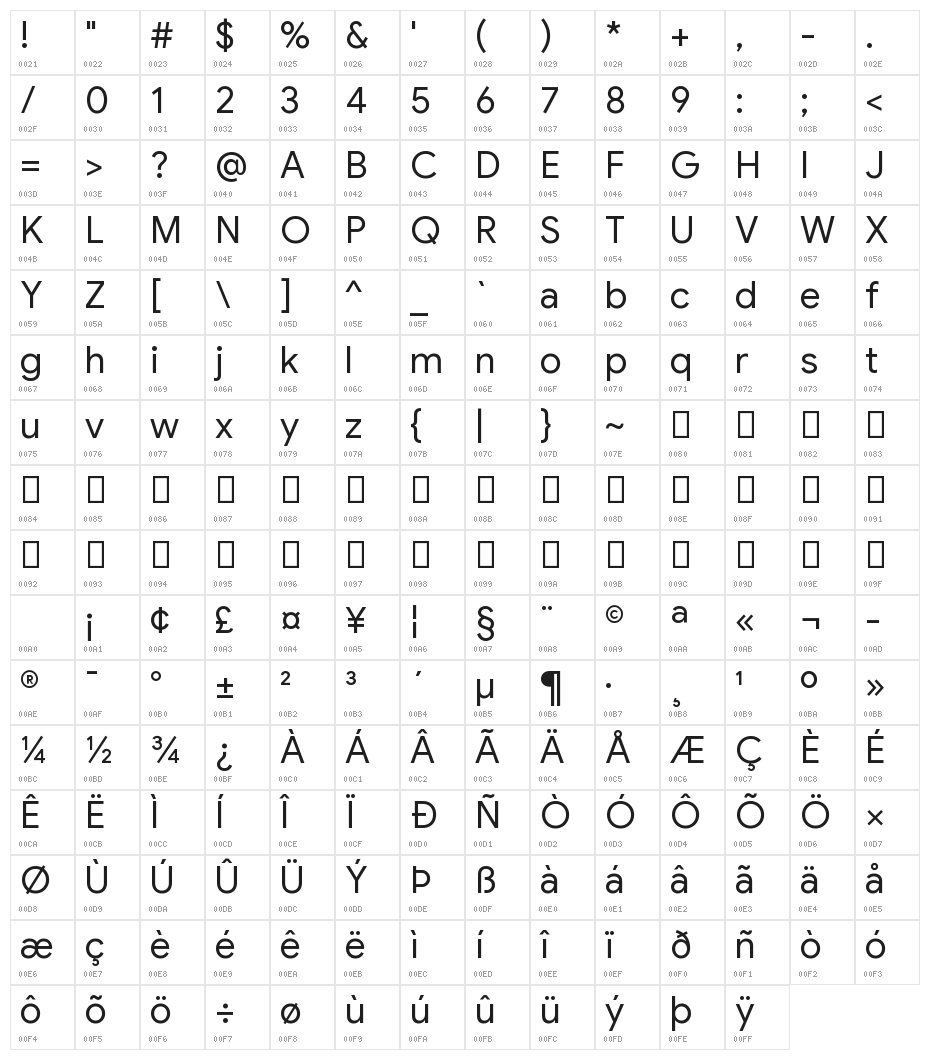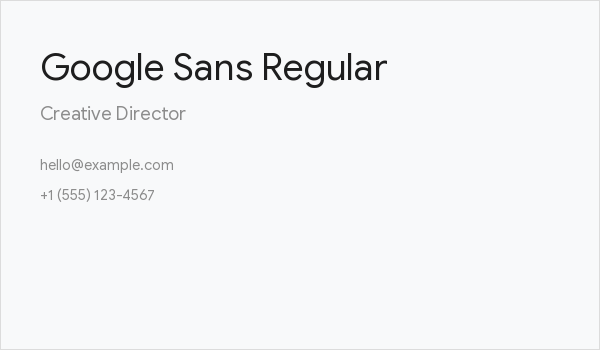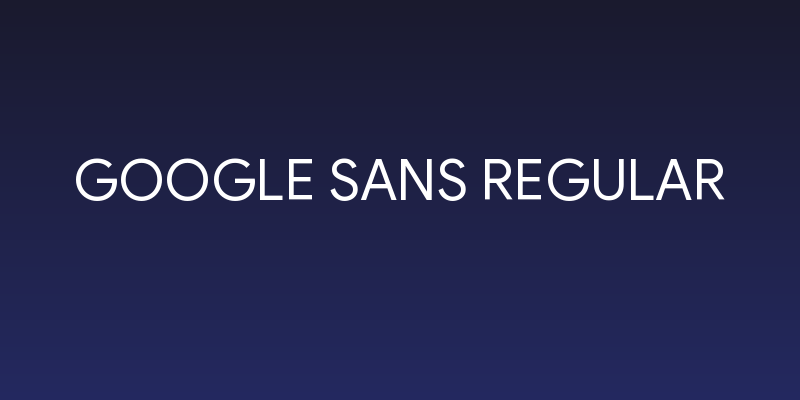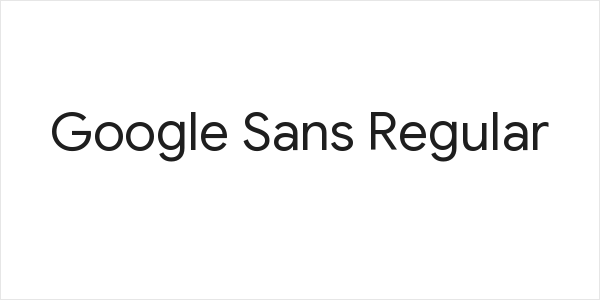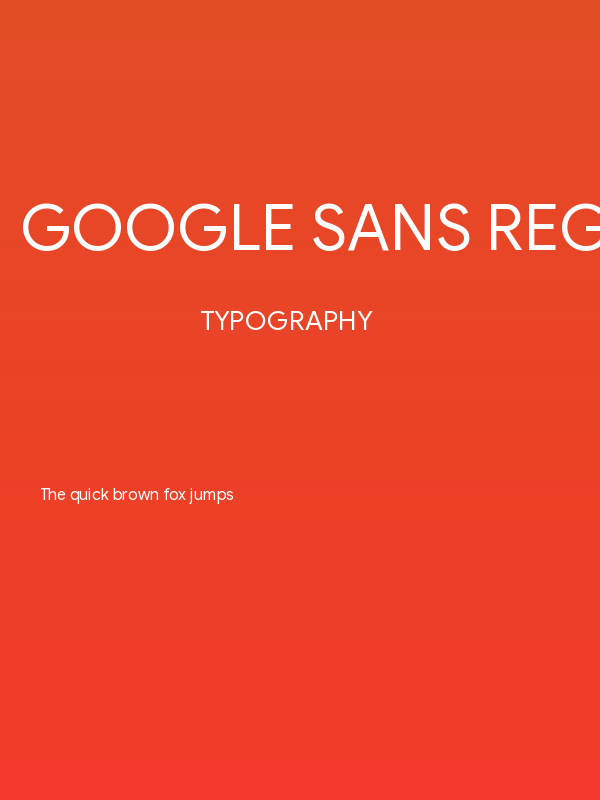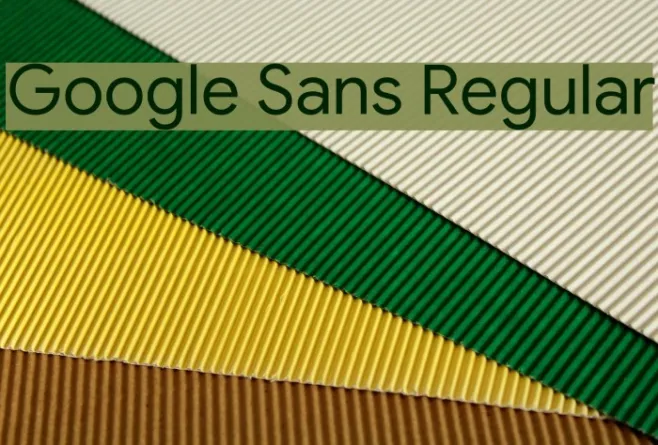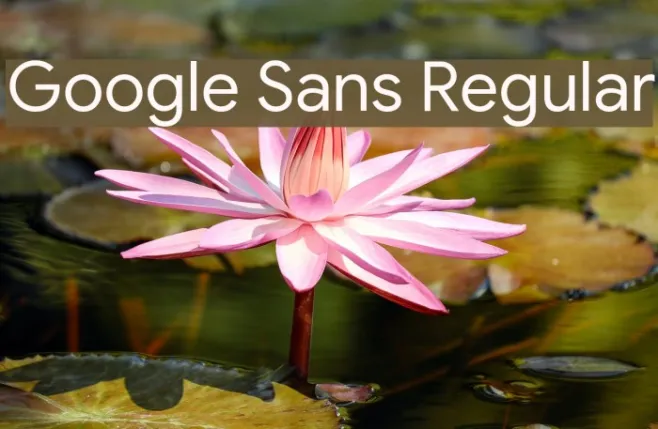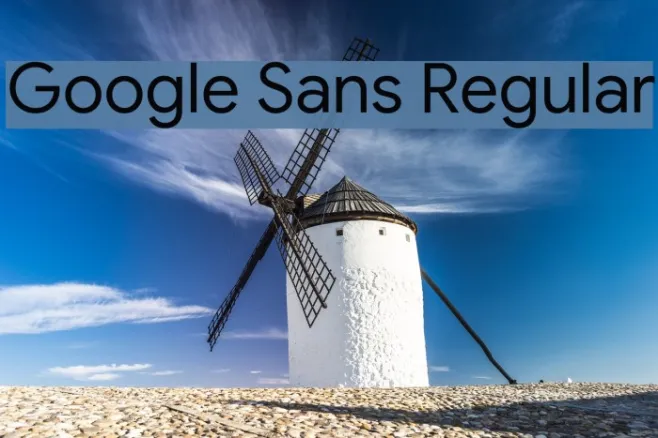
Google Sans Regular Font
Google Sans Regular Description
This typeface features a clean and modern design with a focus on readability and simplicity. The characters are well-proportioned with a geometric structure, offering a balanced and harmonious appearance. The uppercase and lowercase letters maintain a consistent style, with smooth curves and straight lines that enhance its legibility. The numerals are clear and distinct, making them easy to read at various sizes. The special characters are designed to complement the overall aesthetic, ensuring a cohesive look across all text elements. This font is versatile and suitable for a wide range of applications, from digital interfaces to print media.
| Proposed Projects | Ideal for digital interfaces, corporate branding, print media, and user-friendly web design. |